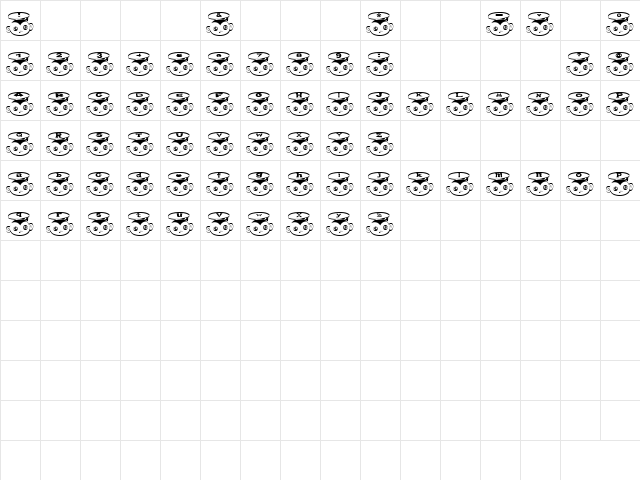
mi2 Font Regular
Design Context for mi2 Font Typeface
mi2 Font is a composed and adaptable typeface that performs quietly and consistently across a wide range of design contexts.